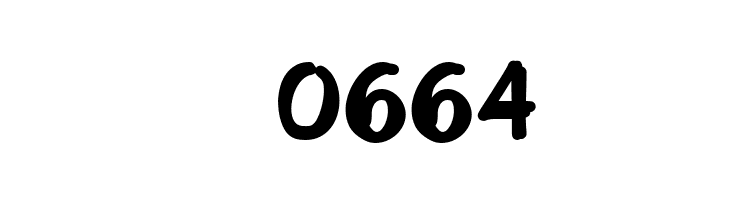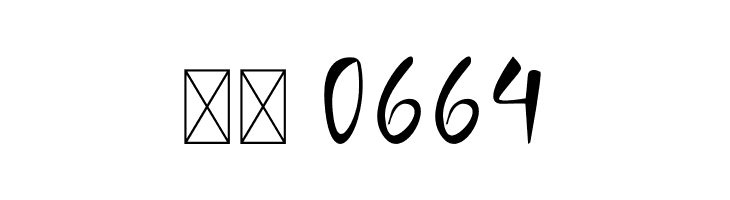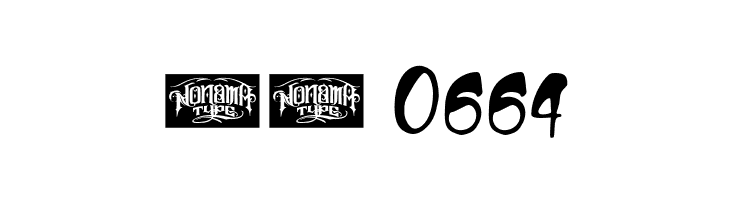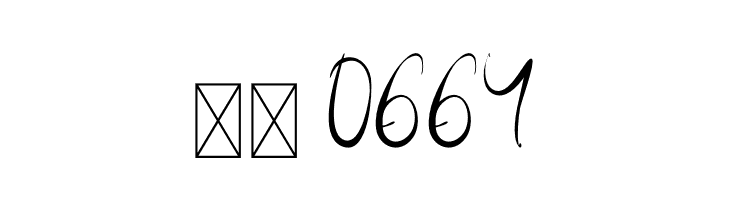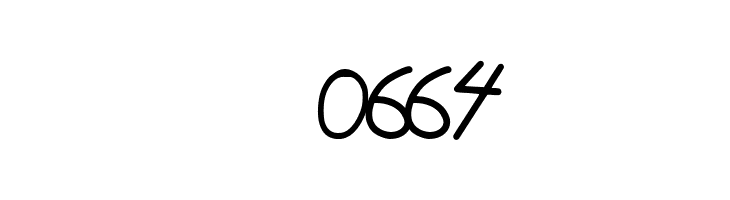
A playful, casual handwritten font with smooth, flowing lines.
A playful, handwritten italic font with bold, rounded strokes.
A bold, brushstroke-style font with a dynamic and expressive appearance.
A geometric, angular font with a futuristic and edgy design.
A bold, cursive script font with dynamic, sweeping strokes.
A bold, expressive brush-style font with a raw, artistic appearance.
A bold, brush-style font with an energetic, hand-painted look.
A bold, distressed font with a grunge aesthetic and textured appearance.
A playful, handwritten italic font with rounded characters and consistent stroke width.
A bold, edgy font with sharp, jagged edges and a rebellious, grunge-like style.
A bold, decorative font with playful skull and star embellishments.
A bold, hand-drawn font with a textured, sketch-like appearance.
A flowing, elegant script font with smooth, cursive letterforms and artistic flourishes.
A bold, expressive handwritten font with playful uppercase letters.
A bold, playful handwritten font with a casual and modern style.
A bold, cursive font with dynamic strokes and elegant flourishes.
A dynamic and elegant script font with flowing cursive letterforms.
A flowing, cursive script font with elegant, handwritten characteristics.
A bold, playful, hand-drawn font with rounded edges.
A bold, expressive script font with dynamic curves and strong strokes.
An elegant, flowing script font with a handwritten style.
A lively handwritten font with fluid, dynamic strokes and a playful aesthetic.
A lively, expressive handwritten font with fluid strokes and a casual elegance.
A festive, decorative font with Christmas-themed embellishments.
A playful, bold outline font with rounded, smooth characters.
A rugged, distressed font with sharp, angular lines and a hand-drawn appearance.
A dynamic brush script font with bold, textured strokes and an artistic flair.
A bold, artistic font with dynamic, hand-drawn strokes.
A dynamic, handwritten-style font with fluid strokes and expressive characters.
A playful handwritten font with thin, flowing strokes and a whimsical style.
A dynamic and fluid script font with elegant, flowing lines.
A bold, geometric font with a 3D effect and sharp angles, offering a modern and industrial look.